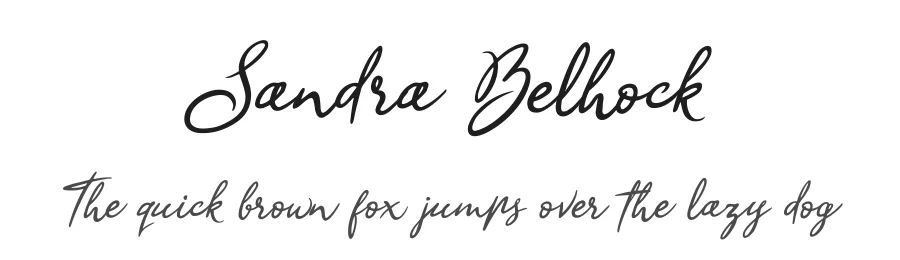
About Better Rouge Font
Better Rouge Specifications
| Font Family | Better Rouge |
| Full Name | Better Rouge |
| Glyph Count | 224 glyphs |
| PostScript Name | BetterRouge |
| Designer | Fargun Studio |
Better Rouge Font is a script font that shines as a display or heading face. Pair it with a clean sans-serif or serif font for body text β the contrast creates a clear hierarchy while the two styles stay balanced and easy to read.